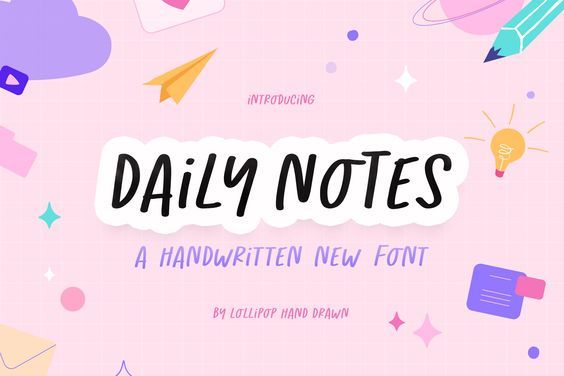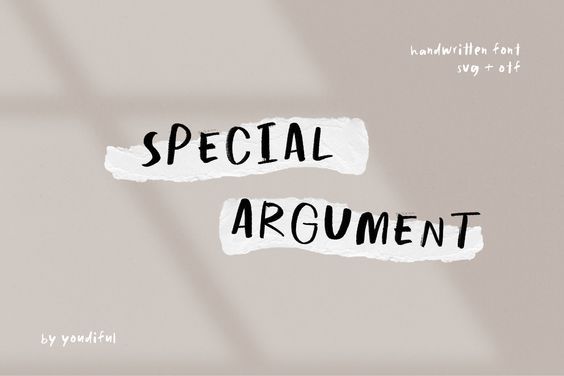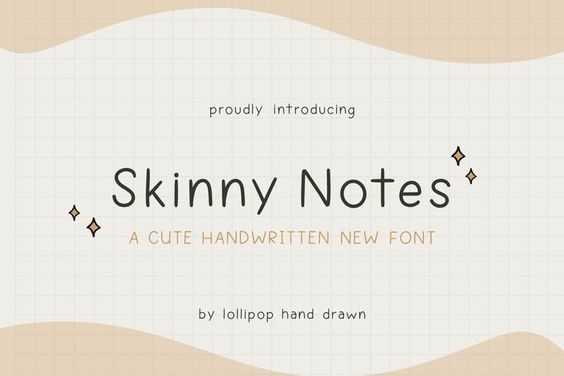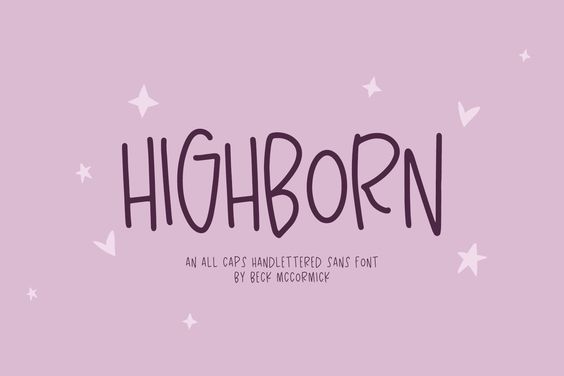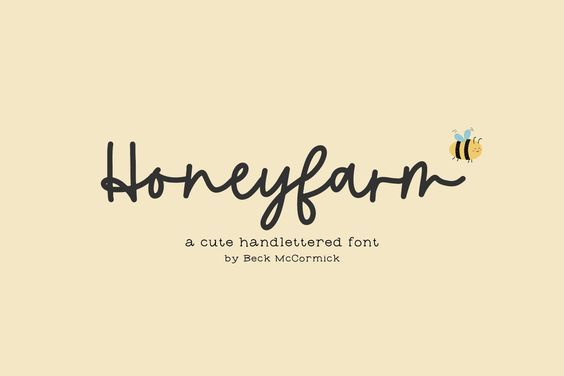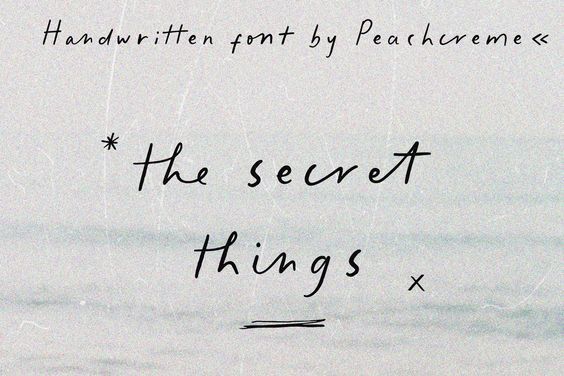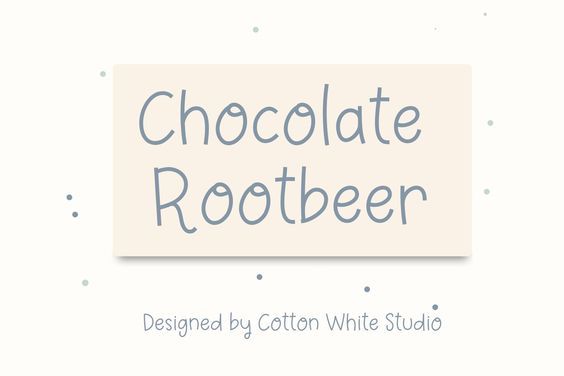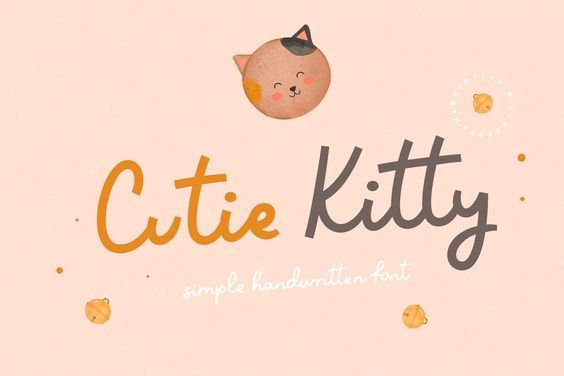
How to Add New Fonts GoodNotes, Plus Cool Recommendations
Fonts GoodNotes makes us all fall in love all over again with handwriting. GoodNotes has been a popular note-taking and digital handwriting application used on iOS devices like iPads.
With this app, we are able to create and annotate digital documents or notebooks using fancy handwriting, images, text, and more. Even though fonts GoodNotes don’t have wide variations of typography, there are still ways to add cool and cute fonts to GoodNotes.
Keep reading to learn how and what great font recommendations to add to your GoodNotes app!
Most of you surely want to add a cute and unique font for your journals or planners. Pretty fonts can make your diary or writings on GoodNotes stand out even when you don’t have any cute elements, such as stickers or pictures.
How to Choose the Best Fonts
Before jumping to cool font recommendations, it is important to select the perfect typefaces for your GoodNotes. Whether your taste is probably your only consideration or you need to make sure your journals will deliver the content perfectly, here are some factors to consider when picking out a font:
1. Legibility
The first important thing is ensuring your text is easy to read and legible. Some decorative fonts are only perfect for titles or headlines.
2. Copy Length
Make sure your typeface size is perfect with the length of your text. If you have a long text, it is better to go with simpler ones.
3. Special Features
Some fonts offer special features such as small caps, fractions, multiple figure styles, alternate characters, and more.
4. Think Outside of the Box
Never afraid to try something new and different. Experimenting with typefaces and fonts will always be a fun thing to do. Therefore, use something that you’ve never tried before.
Best Custom Fonts GoodNotes
Some classic and timeless fonts will elevate your digital writing. Besides looking good and decorative, a good font is also legible. You should also consider whether you wish to add elegance or creativity to your notes.
While you can always use the default fonts, using custom fonts will boost the visual feel of your notes. It will also help you organize your content effectively. Choosing different types of typography for your title, sub-title, and regular text will also make your notes more readable and well-structured.